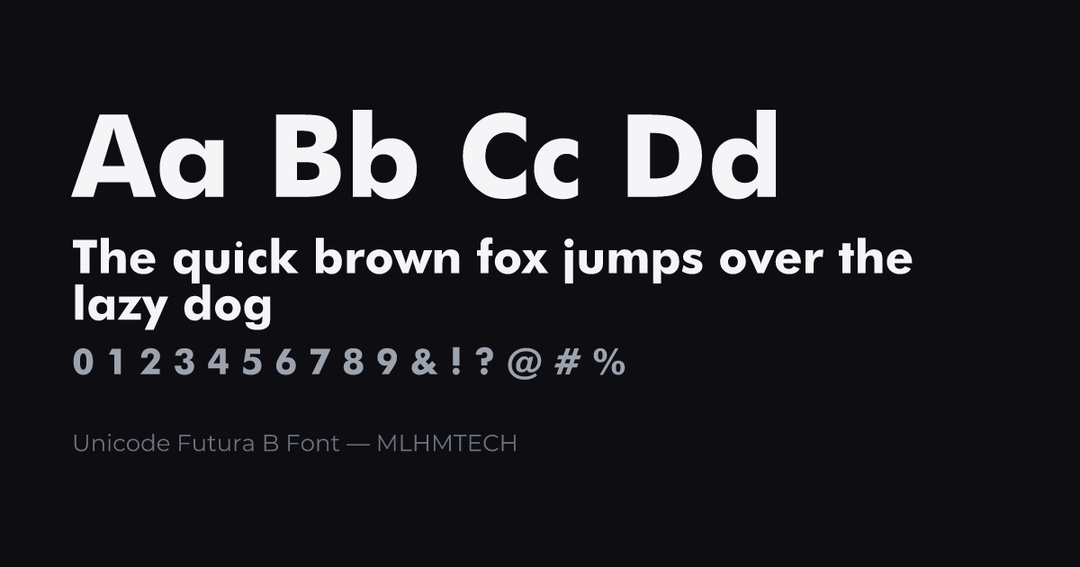
Unicode Futura B Font
Unicode Futura B is a geometric sans-serif font with a clean, modern look. Ideal for headings, logos, and contemporary design projects.
Unicode Futura B is a classic geometric sans-serif typeface inspired by the iconic Futura design. Its clean lines and balanced proportions make it a versatile choice for a wide range of creative projects.